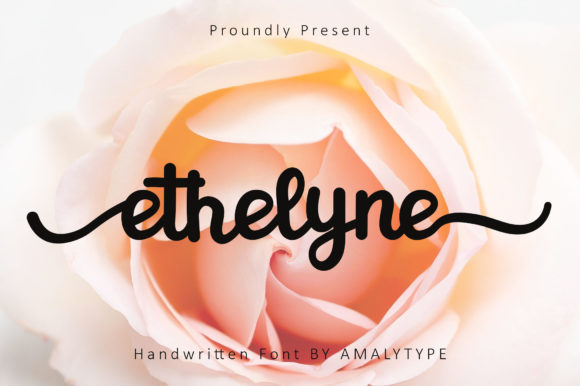
In a world of digital designs, where fonts hold the power to transform words into captivating expressions, allow us to introduce you to Ethelyne Font, a script font family that's nothing short of enchanting.
Picture this: you're crafting a heartfelt letter to a loved one, and you want your words to dance off the page with grace and elegance. Or, you're designing a book cover that demands attention, yearning for a font that exudes timeless beauty. Look no further, for Ethelyne Font is your muse, your creative companion, ready to elevate your designs to new heights.
As a font carefully crafted by the skilled hands of amalytype, Ethelyne possesses an undeniable charm that draws the eye and captivates the heart. Its flowing curves and delicate strokes evoke a sense of nostalgia, reminiscent of handwritten letters penned with love and care.
With Ethelyne Font as your chosen companion, you'll find endless possibilities at your fingertips. Create eye-catching logos that leave a lasting impression, branding that radiates sophistication, and quotes that resonate with heartfelt emotions. Let your imagination soar as Ethelyne Font transforms your words into visual masterpieces.
But what truly sets Ethelyne Font apart is its user-friendly nature. It's PUA encoded, meaning you can effortlessly access all of the glyphs and swashes with remarkable ease. Unleash your creativity without limits, knowing that Ethelyne Font has got your back, making your design process seamless and enjoyable.
So, whether you're a seasoned designer seeking a touch of elegance or a budding artist exploring the world of typography, Ethelyne Font is your perfect match. Embrace its timeless beauty, let your imagination run wild, and create designs that speak volumes.